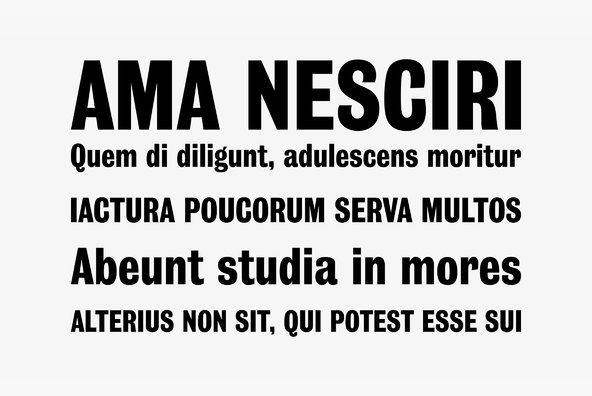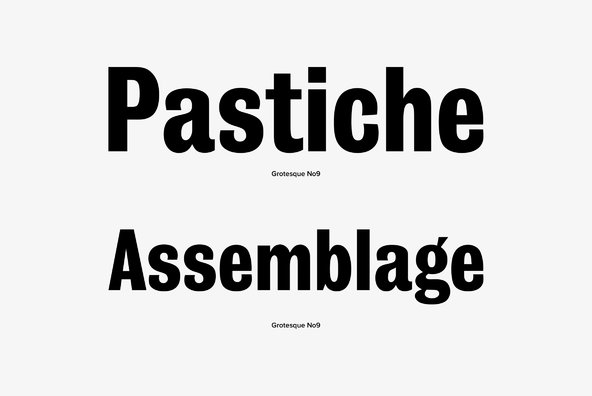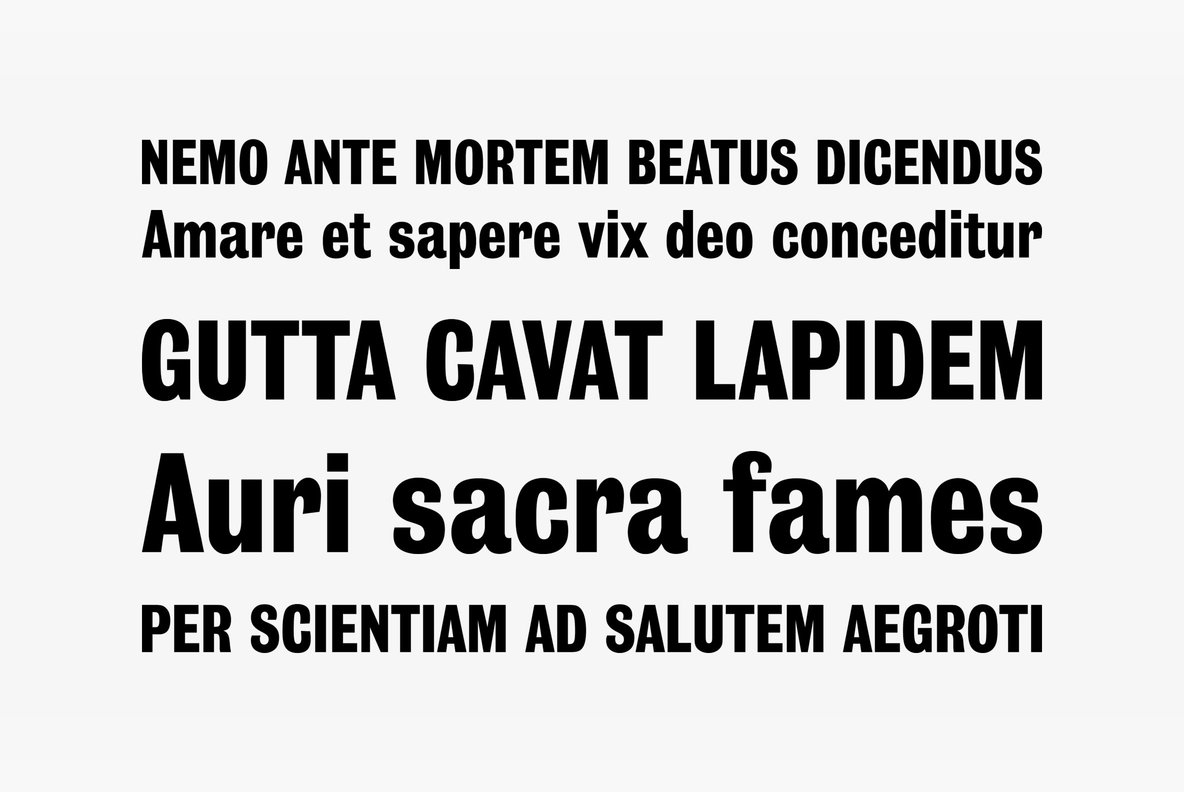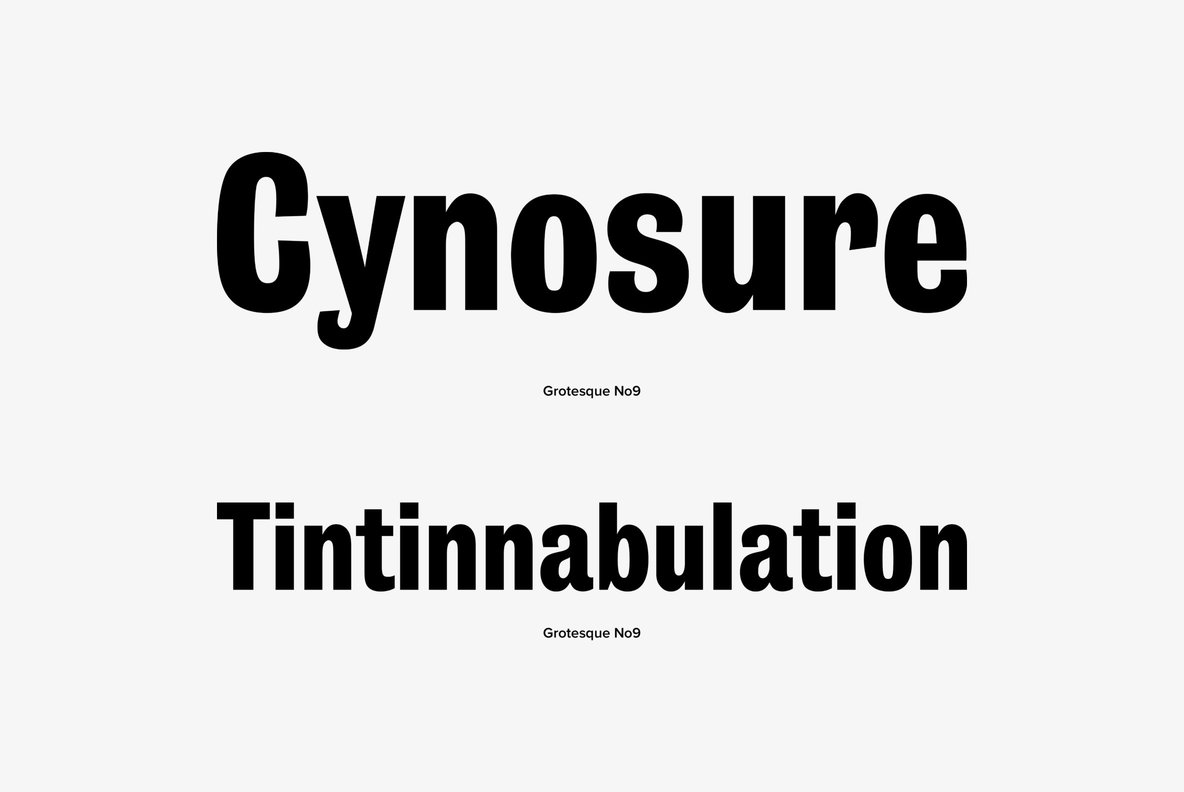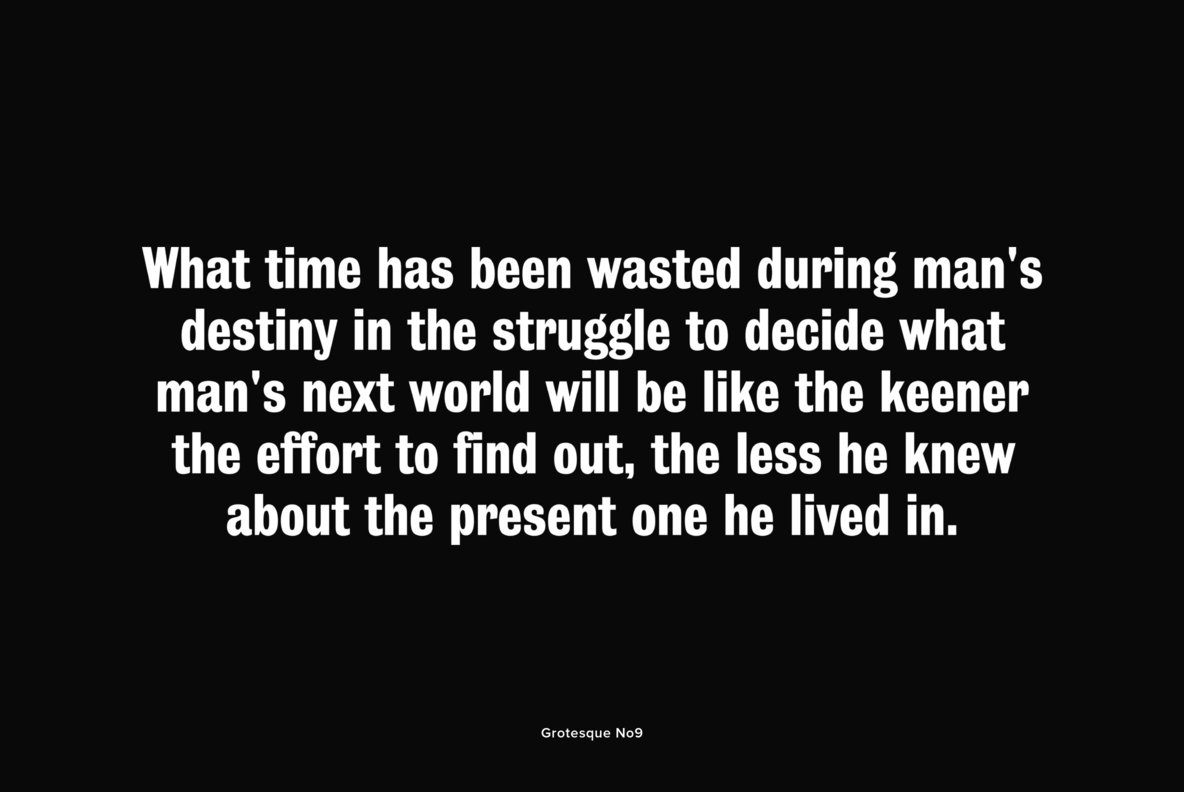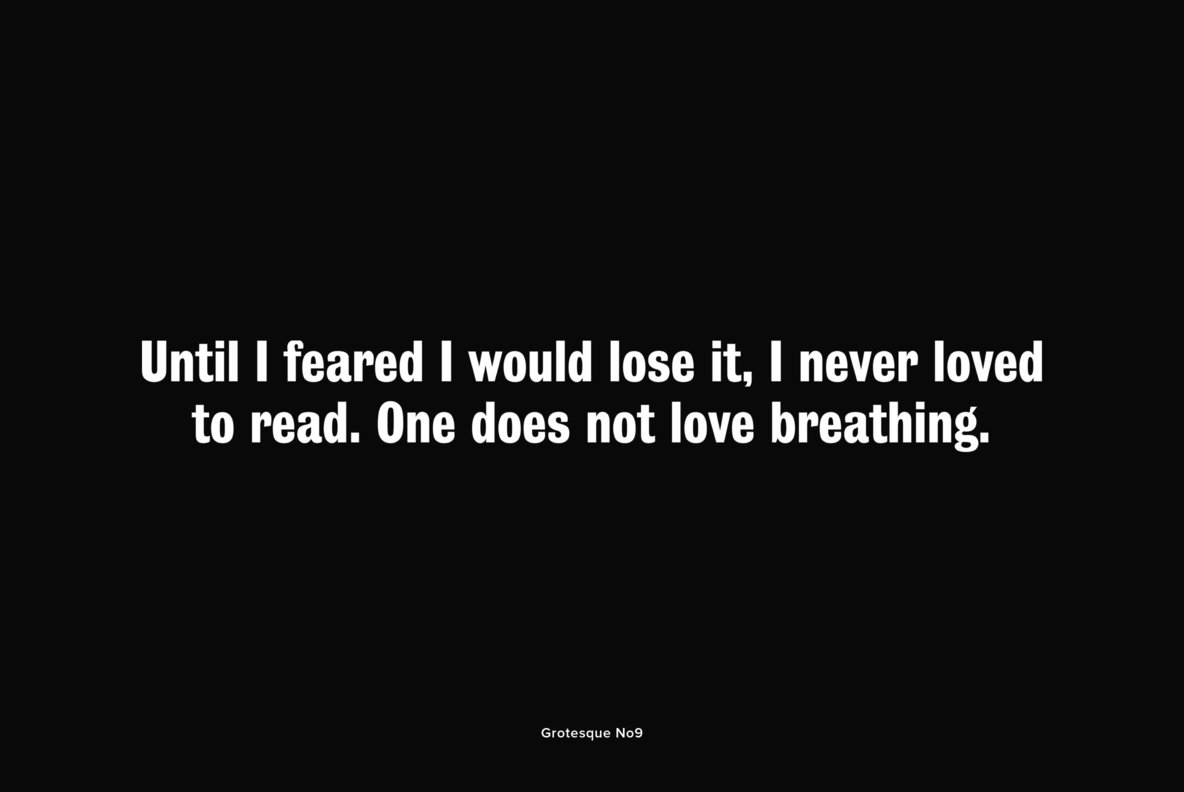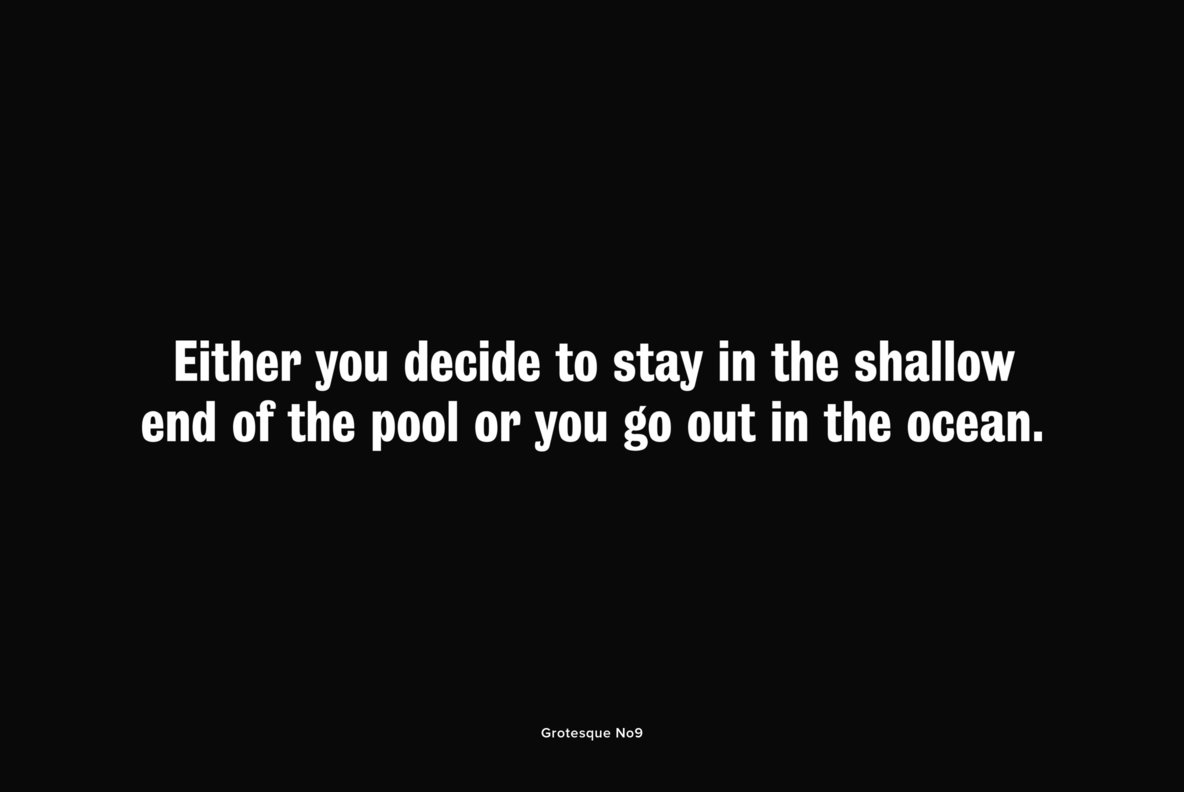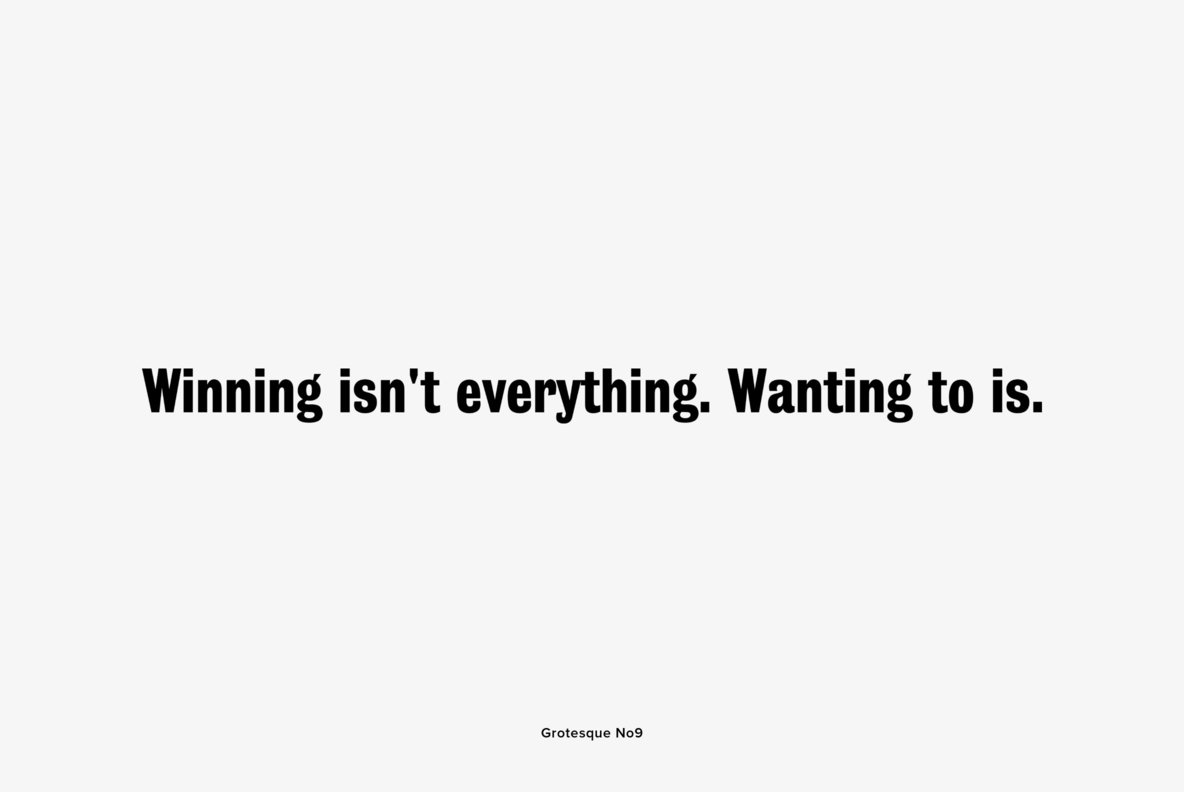
Grotesque No 9
Designed by Eleisha Pechey in 1906, Grotesque No 9 is an early 1900's sans-serif font design. Contains language support for West, East, Turkish, Baltic, and Romanian.